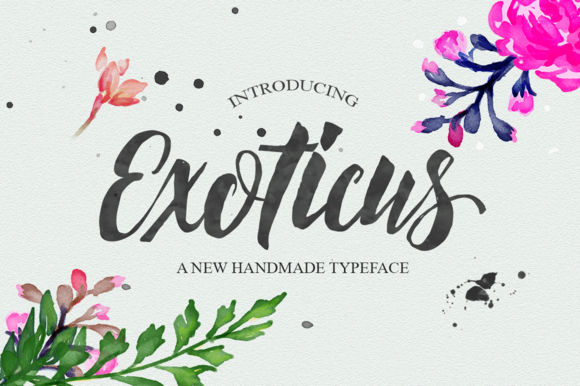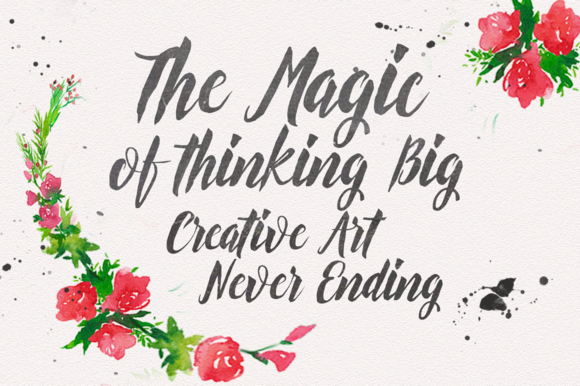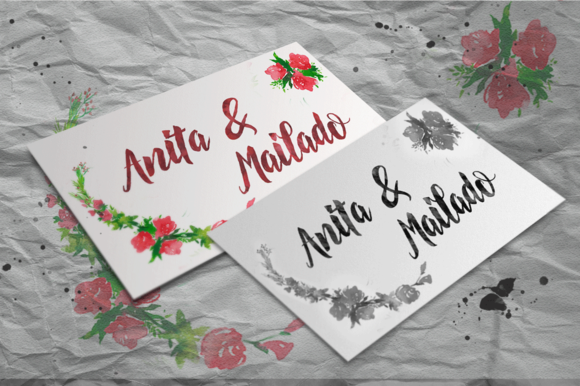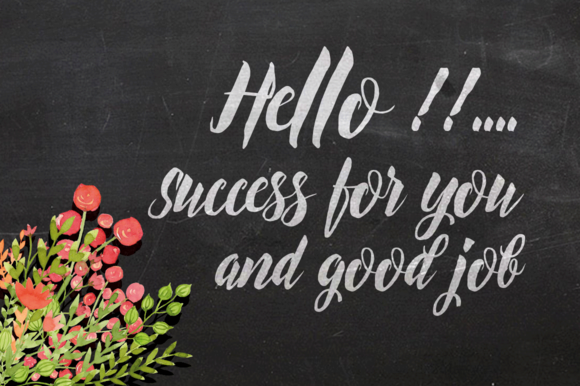
Exoticus Font
About Exoticus Font
Exoticus is a brush script font with rough handwritten letters. It feels modern and is great for creating personalized designs.